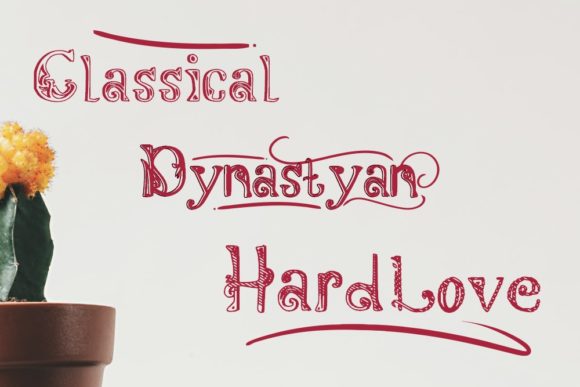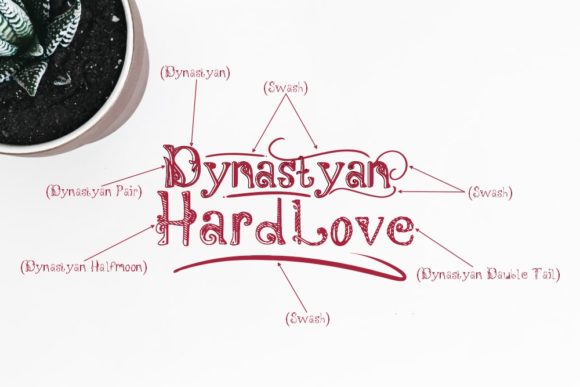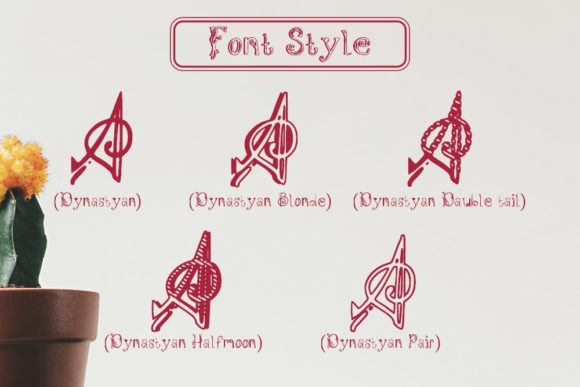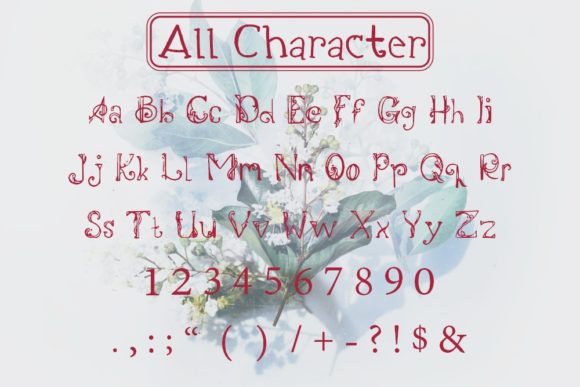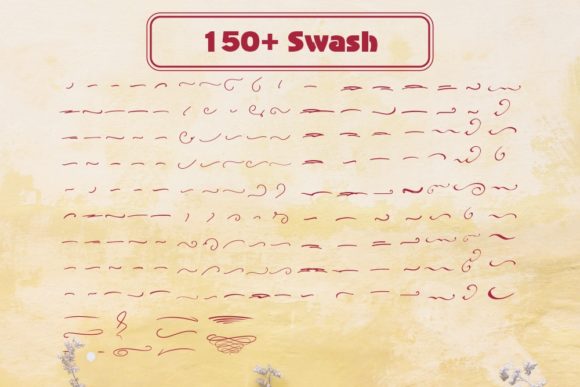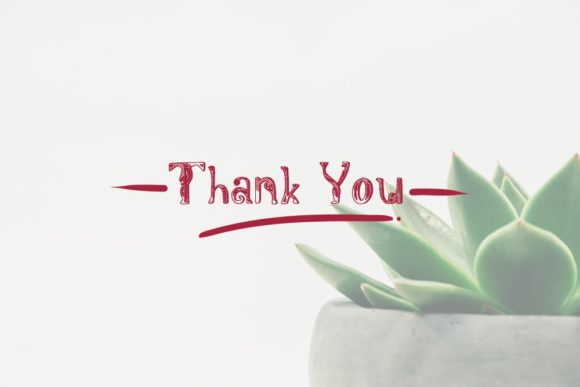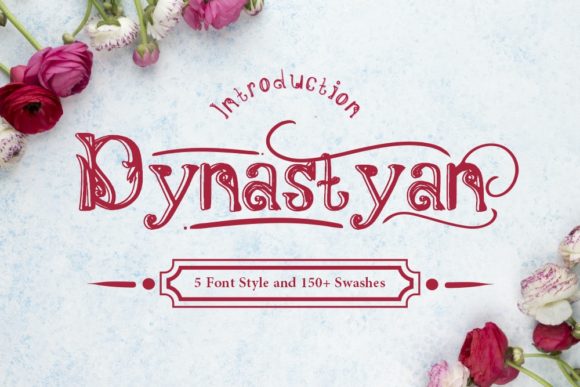
Dynastyan Font: Elevate Your Designs with a Vintage Twist
In the world of typography, fonts play a crucial role in bringing a design to life. For designers and crafters looking to add a touch of nostalgia and elegance to their work, the Dynastyan Font is an excellent choice. This unique and beautiful display font delivers an incredible vintage aesthetic, making it perfect for a wide range of design projects.
What is Dynastyan Font?
Dynastyan is a carefully crafted display font that embodies the essence of vintage typography. Its distinctive style is characterized by elegant lines, intricate details, and a classic charm that instantly transports you back in time. Whether you’re working on a logo, branding materials, posters, or any other design project, Dynastyan Font is sure to make a lasting impression.
Key Features of Dynastyan Font
- Unique and Beautiful Design: Dynastyan boasts a one-of-a-kind design that sets it apart from other fonts. Its unique style ensures that your designs stand out from the crowd.
- Vintage Aesthetic: The font’s vintage aesthetic is perfect for designers looking to add a retro touch to their work. It works exceptionally well for designs that require a classic, sophisticated look.
- Elegant and Readable: Despite its intricate details, Dynastyan Font remains highly readable, making it suitable for both headings and short paragraphs of text.
- Versatile: This font is incredibly versatile and can be used across various design projects, including but not limited to logos, posters, business cards, and social media graphics.
How to Use Dynastyan Font in Your Designs
- Pair it with Modern Fonts: For a striking contrast, pair Dynastyan with modern, minimalist fonts. This combination creates a visually appealing hierarchy in your design.
- Experiment with Colors: Dynastyan Font looks stunning in metallic colors, pastels, and rich jewel tones. Don’t be afraid to experiment with different colors to find the perfect match for your design.
- Play with Sizes: The font’s readability makes it suitable for use at various sizes. Play around with different sizes to add depth and emphasis to your design.
Benefits of Using Dynastyan Font
There are several benefits to using Dynastyan Font in your designs:
- Instant Vintage Appeal: Dynastyan gives your designs an instant vintage appeal, saving you time and effort in creating a retro look from scratch.
- Professional and Elegant: The font’s elegant design ensures that your work looks professional and sophisticated, making it perfect for high-end branding and marketing materials.
- Unique Branding: With Dynastyan, you can create unique and memorable branding that stands out in a crowded market.
Dynastyan Font is a game-changer for designers and crafters looking to infuse their work with a vintage charm. Its unique design, combined with its readability and versatility, makes it an excellent choice for a wide range of design projects. By incorporating Dynastyan into your design toolkit, you can elevate your work and create stunning, professional-looking designs that leave a lasting impression.